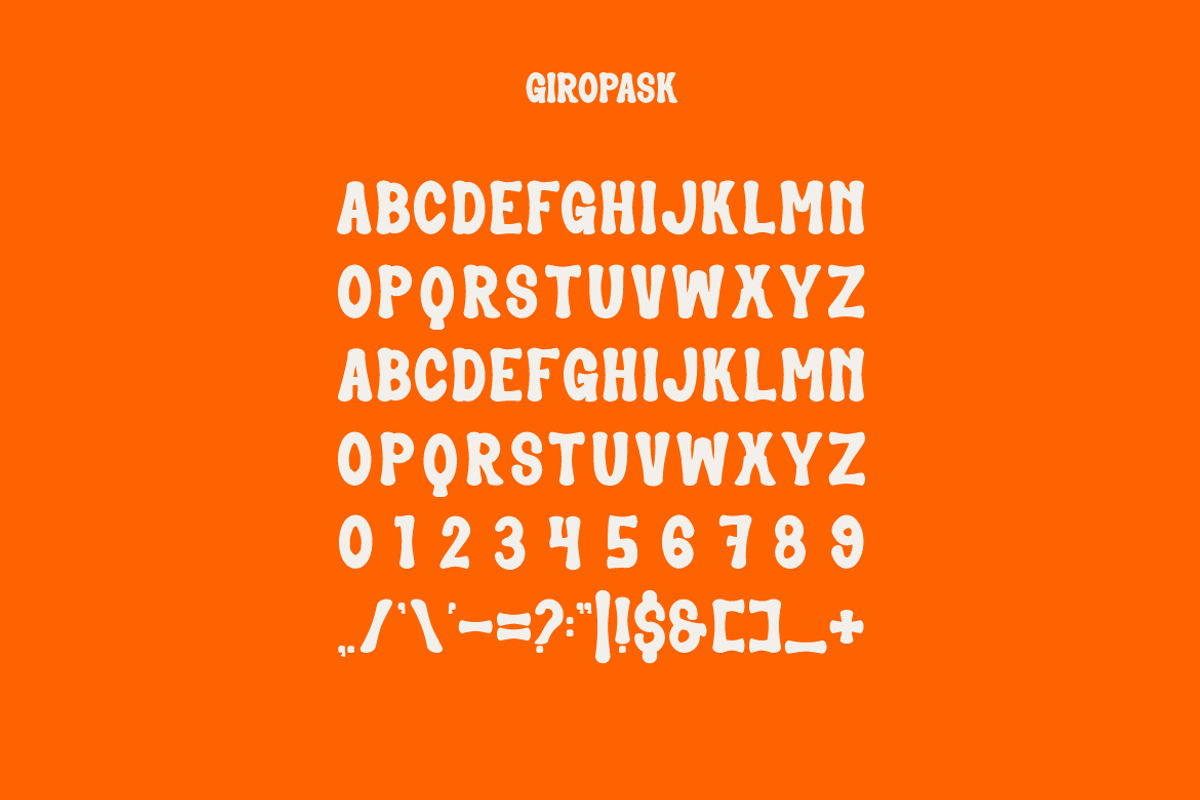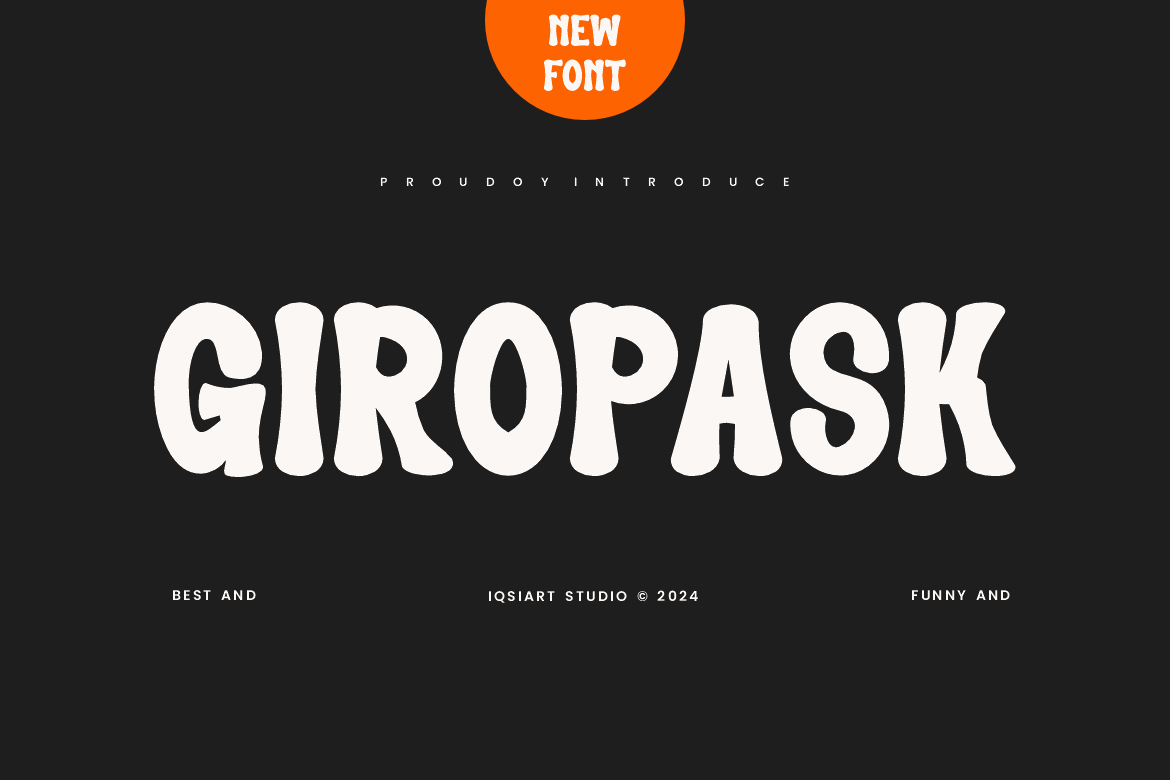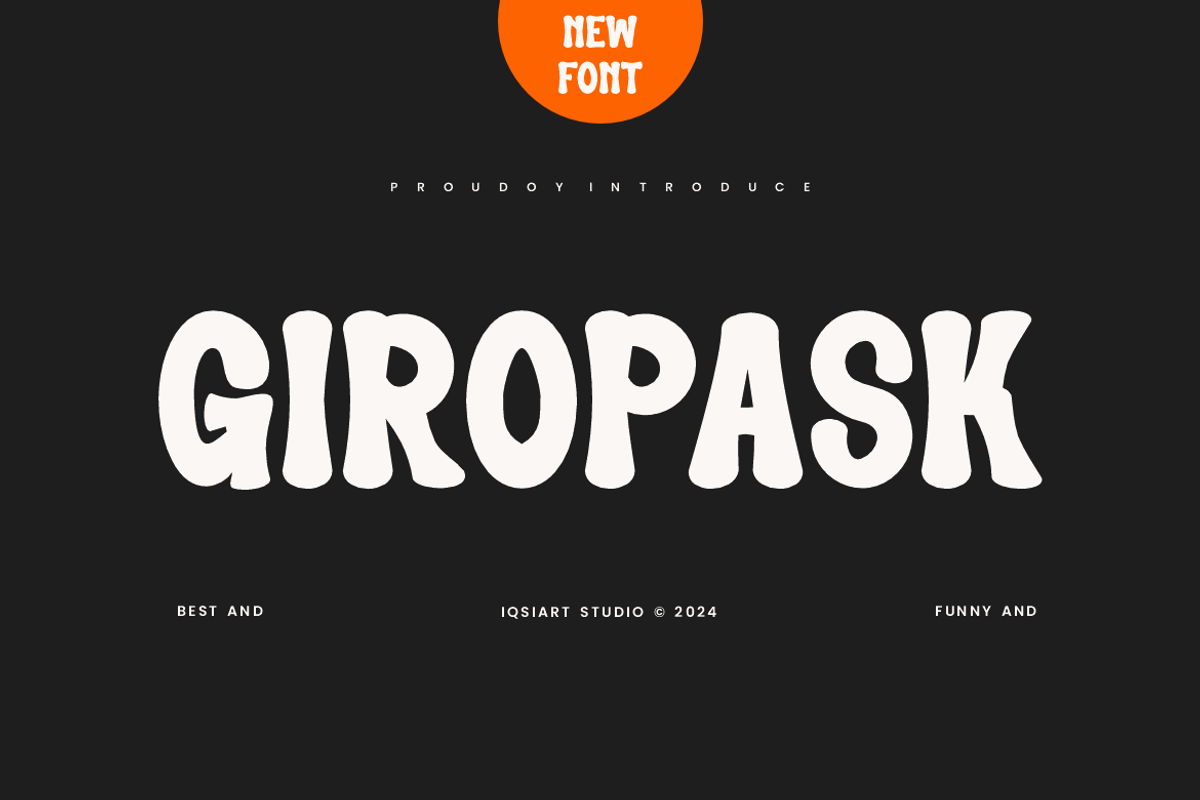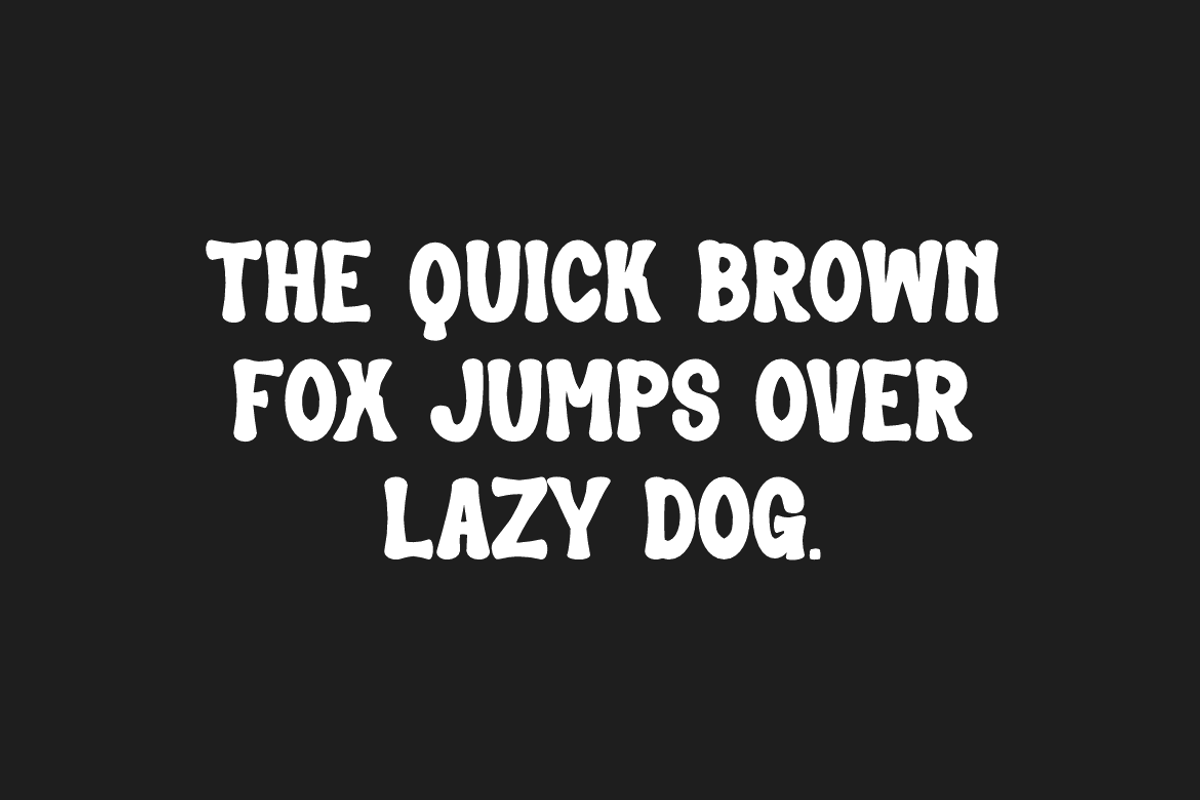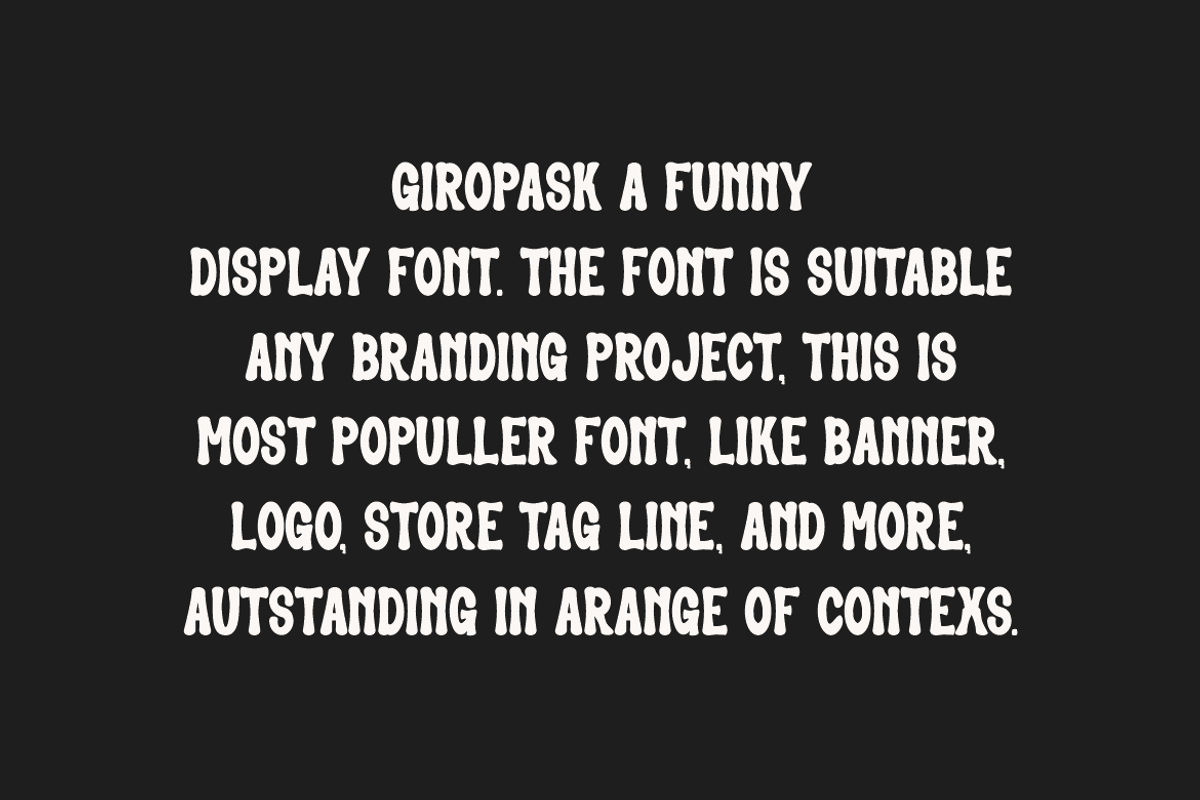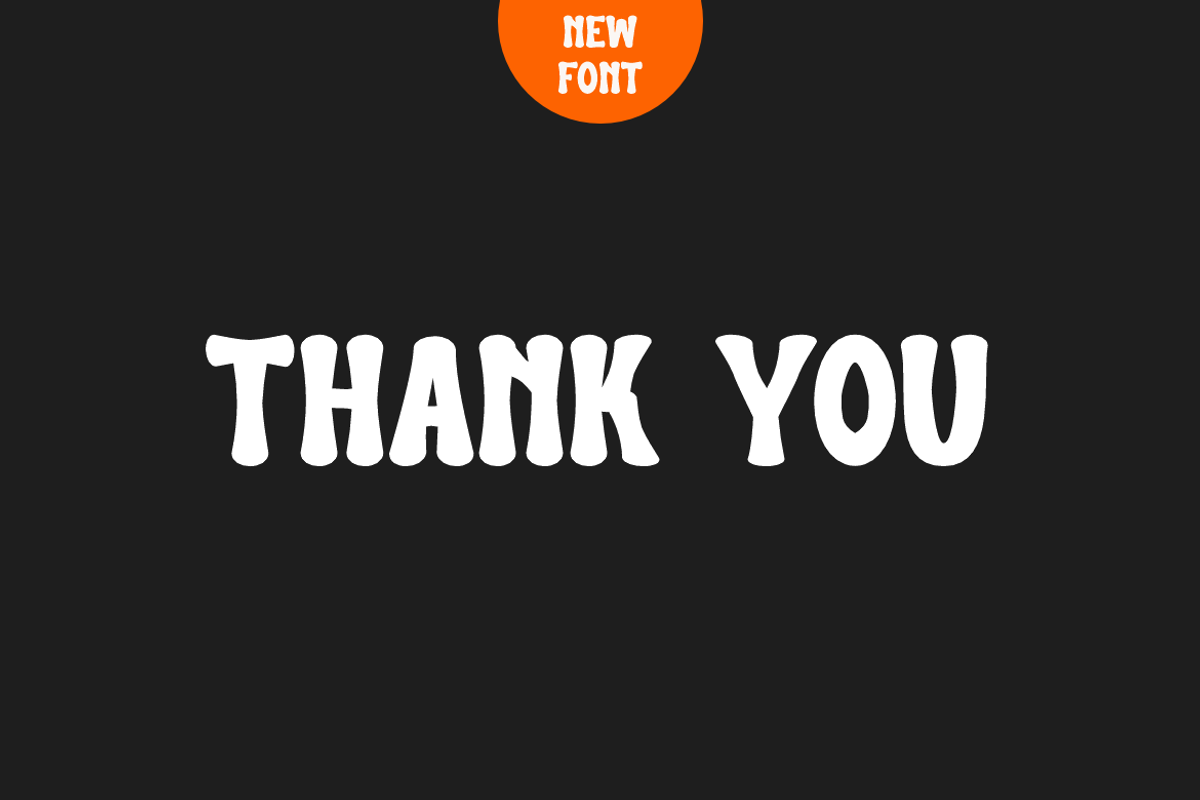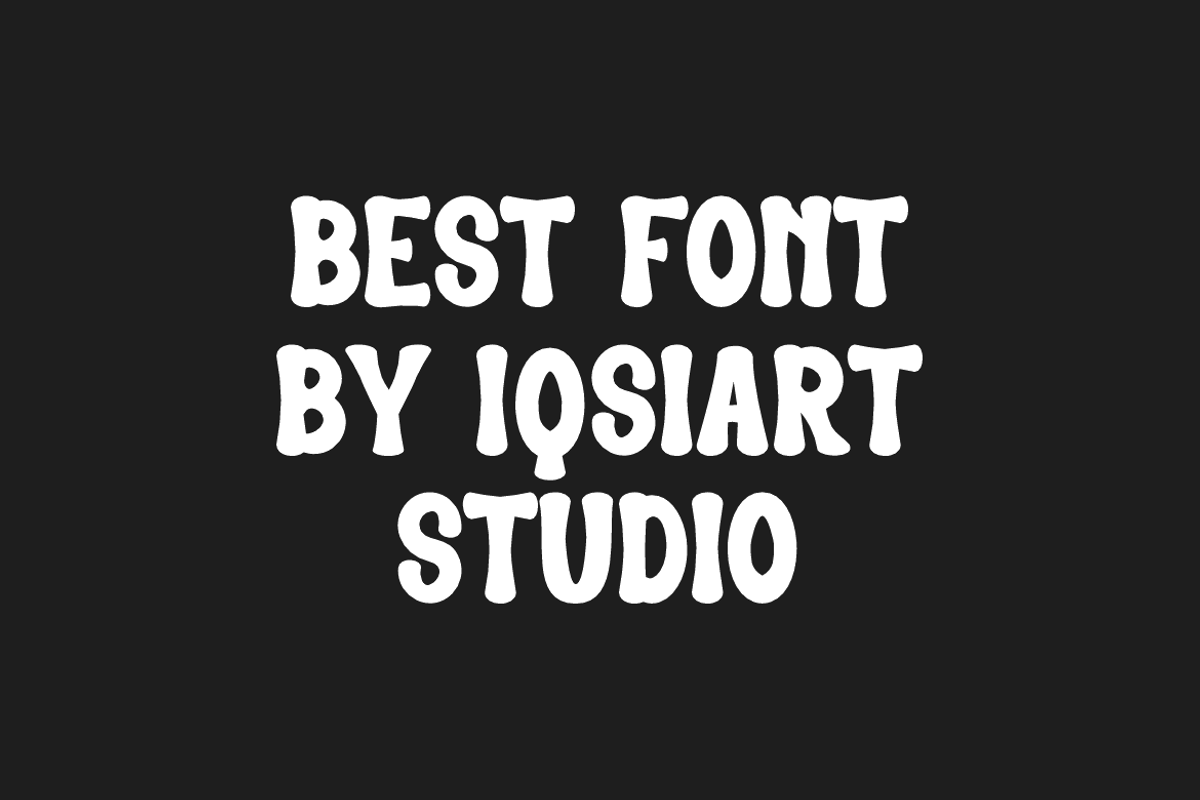
Giropask - Funny Font
Giropask Font is a best and authentic display font. This font can be used for your various needs. We provide various themes and font styles. visit our profile to get a wide variety of themes and different font styles you need.